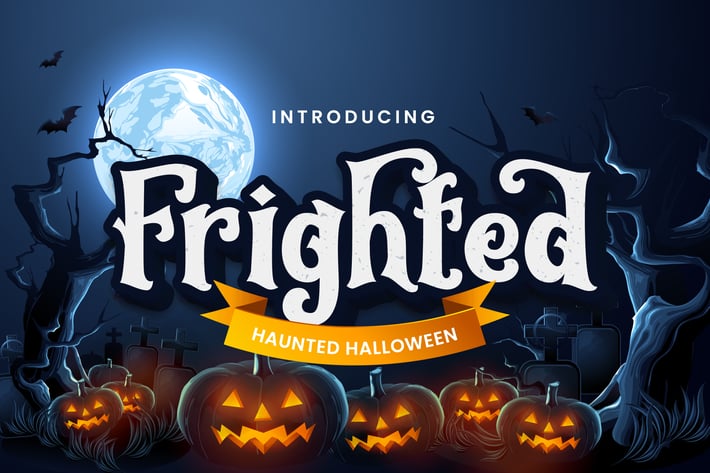
Frighted Halloween Business Font
Frighted is a haunted Halloween typeface specially crafted with love to create amazing-looking fonts. This font is perfect for all your big products so it looks amazing.
Frighted is perfect for branding projects, logo, wedding designs, social media posts, advertisements, product packaging, product designs, label, photography, watermark, invitation, stationery and any projects that need handwriting taste.
Ton of glyphs
Ligature & Alternate